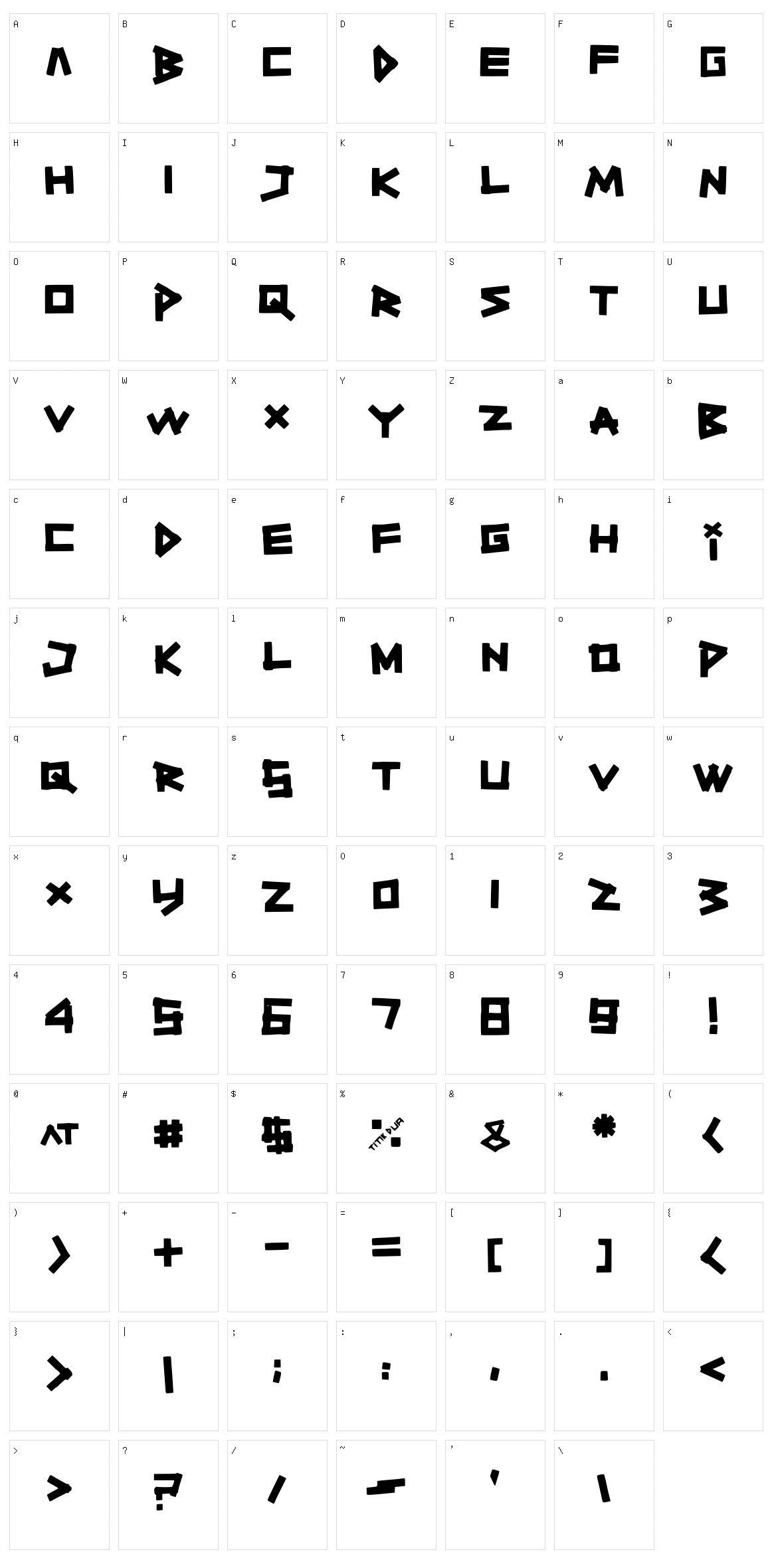
The free font Titik Tapettf is carefully designed by Seorang presiden prostitutionalisme abrakadabri -FRENGKY, showcasing a thoughtful balance of creativity and usability and falls under the Cartoon font style. When you download the ZIP file, it contains only 22.58 KB of font files, making it lightweight and quick to download. Please review the license details below to understand permitted usage and distribution rights. If license information is not available, we recommend using this font for personal projects only or contacting the author directly for commercial usage permissions.